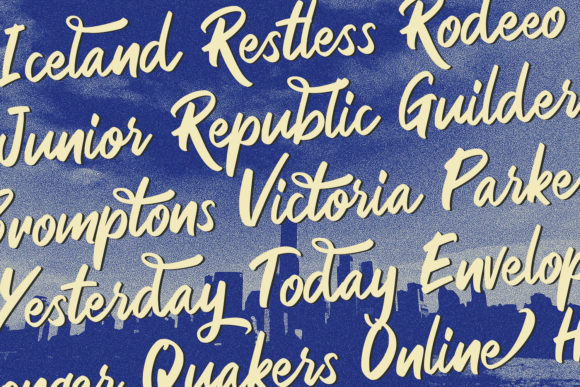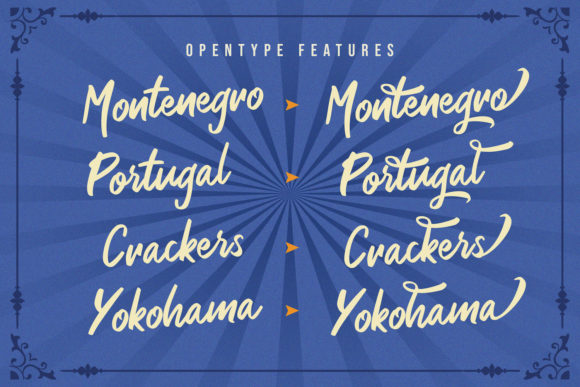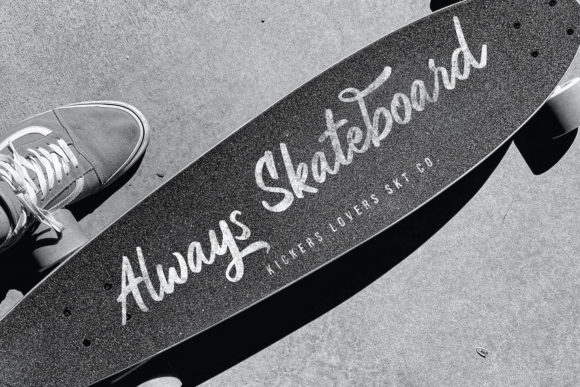
Introduction to Rezojas Font
Rezojas is a gorgeous, cursive and brushed handwritten font.
This font reads as strong, confident, and dynamic and can add tons of nostalgic character to your designs Rezojas is PUA encoded which means you can access all of the beautiful glyphs and swashes with ease.